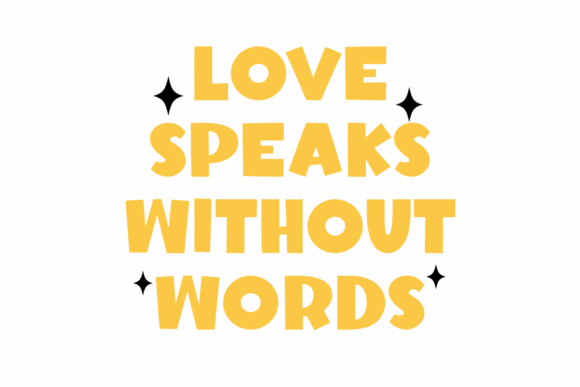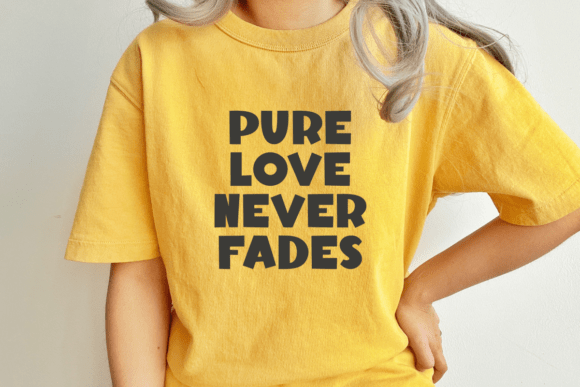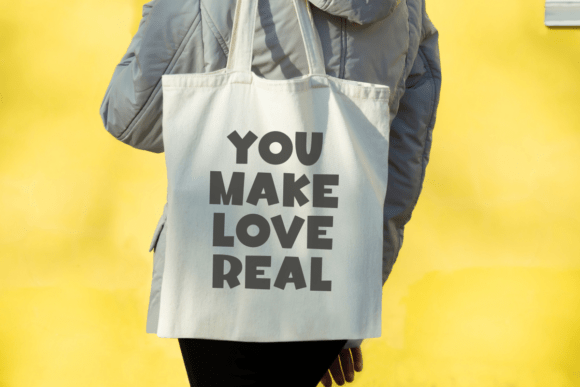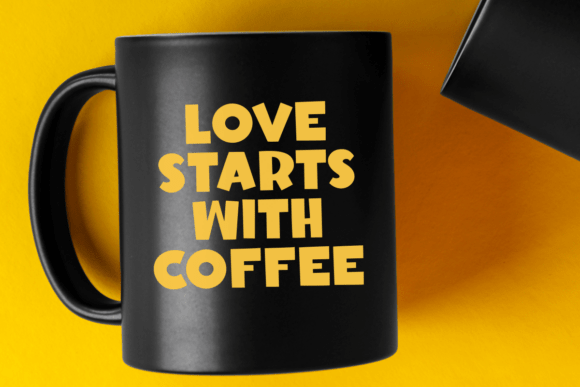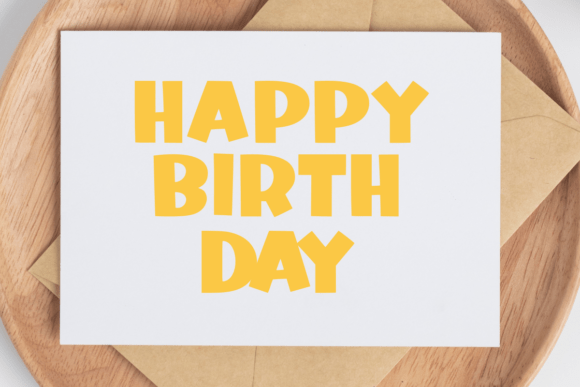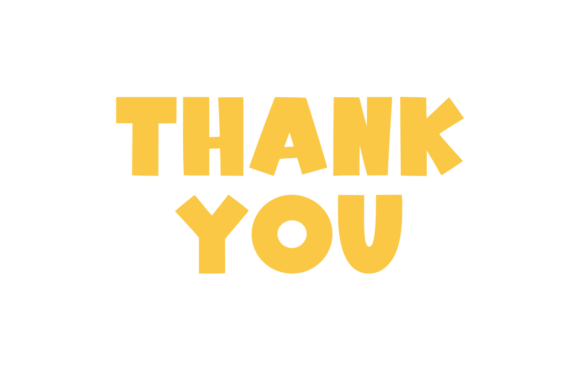
Unleash Your Creativity with Bombay: The Ultimate Handmade Typeface
Are you a designer, crafter, or DIY enthusiast looking to add a touch of personality to your creations? Look no further than Bombay, a vivacious and daring handmade typeface that’s sure to breathe life into any project. From trendy t-shirts and soulful mugs to welcoming doormats and expressive greeting cards, Bombay is the perfect tool to make your designs speak volumes.
The Power of Handmade Typography
Bombay is more than just a font – it’s a celebration of design and expression. Its unique, handmade aesthetic gives it a distinctive flair that’s sure to set your designs apart from the crowd. With Bombay, you can add a playful touch to tote bags, inject personality into birthday cards, or create eye-catching branding that truly stands out.
One of the best things about Bombay is its versatility. This exuberant font can be used on a wide range of materials and products, from fabric and ceramics to paper and wood. Whether you’re a professional designer or a crafty DIY enthusiast, Bombay is the perfect choice for:
- Trendy t-shirts and hoodies
- Soulful mugs and ceramics
- Welcoming doormats and wall art
- Expressive greeting cards and invitations
- Playful tote bags and accessories
Make Your Designs Speak Volumes
Bombay’s distinctive flair makes it the ideal tool for crafting an impactful brand that truly stands out. With this font, you can create designs that are not only visually stunning but also highly effective at communicating your message. Whether you’re looking to build a strong brand identity or simply add some personality to your designs, Bombay is the perfect choice.
Why Choose Bombay?
So why choose Bombay over other fonts? Here are just a few reasons why this handmade typeface stands out:
- Unique aesthetic: Bombay’s handmade aesthetic gives it a distinctive flair that’s sure to set your designs apart from the crowd.
- Versatility: This font can be used on a wide range of materials and products, from fabric and ceramics to paper and wood.
- High-quality design: Bombay is a high-quality font designed with precision and attention to detail, ensuring that your designs look professional and polished.
Get Ready to Unleash Your Creativity
In conclusion, Bombay is more than just a font – it’s a celebration of design and expression. With its unique aesthetic, versatility, and ease of use, this handmade typeface is the perfect tool for designers, crafters, and DIY enthusiasts looking to add a touch of personality to their creations. So why settle for ordinary designs when you can unleash your creativity with Bombay?